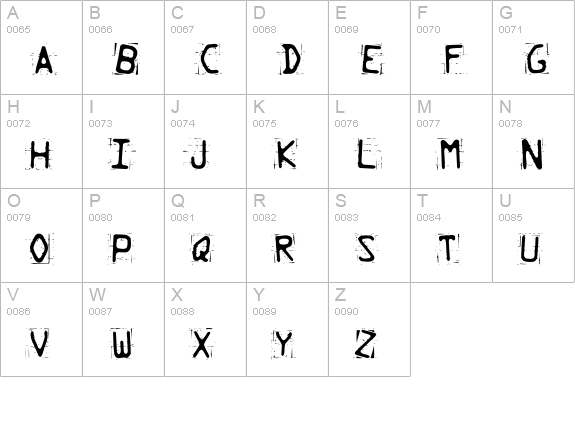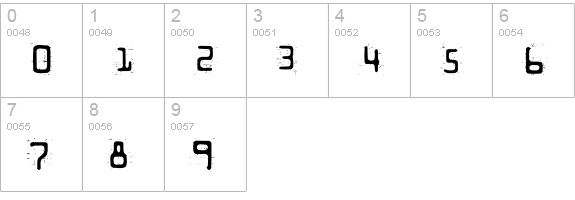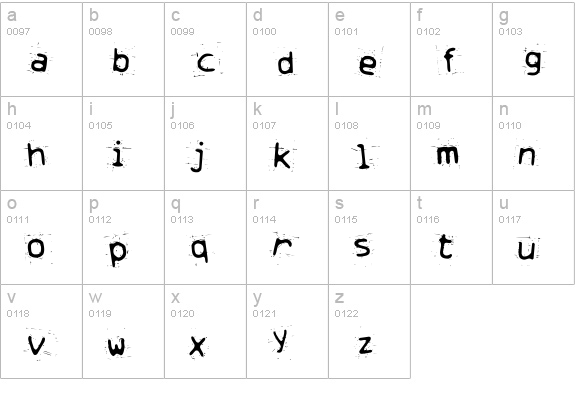
Trash font is a unique and edgy typeface that exudes a raw and rebellious vibe. Perfect for projects that require a grungy and urban aesthetic, this font is sure to make a bold statement. With its jagged edges and distressed appearance, Trash font adds a touch of authenticity and attitude to any design. What makes this font even more appealing is that it is absolutely free! That's right, you can download Trash font at no cost from FontsMarket.com. Whether you are a designer looking to add a touch of grit to your work or simply a typography enthusiast in search of a striking typeface, Trash font is the perfect choice. With its extensive character set, Trash font allows for endless possibilities in creating eye-catching headlines, logos, posters, album covers, and more. Its strong and rugged appearance is ideal for projects related to music, urban culture, streetwear, and anything that calls for a bit of edge. So why wait? Don't miss out on the opportunity to enhance your designs with this incredible font. Download Trash font for free today at FontsMarket.com and let your creativity run wild. Embrace the unconventional and make a statement with Trash font.